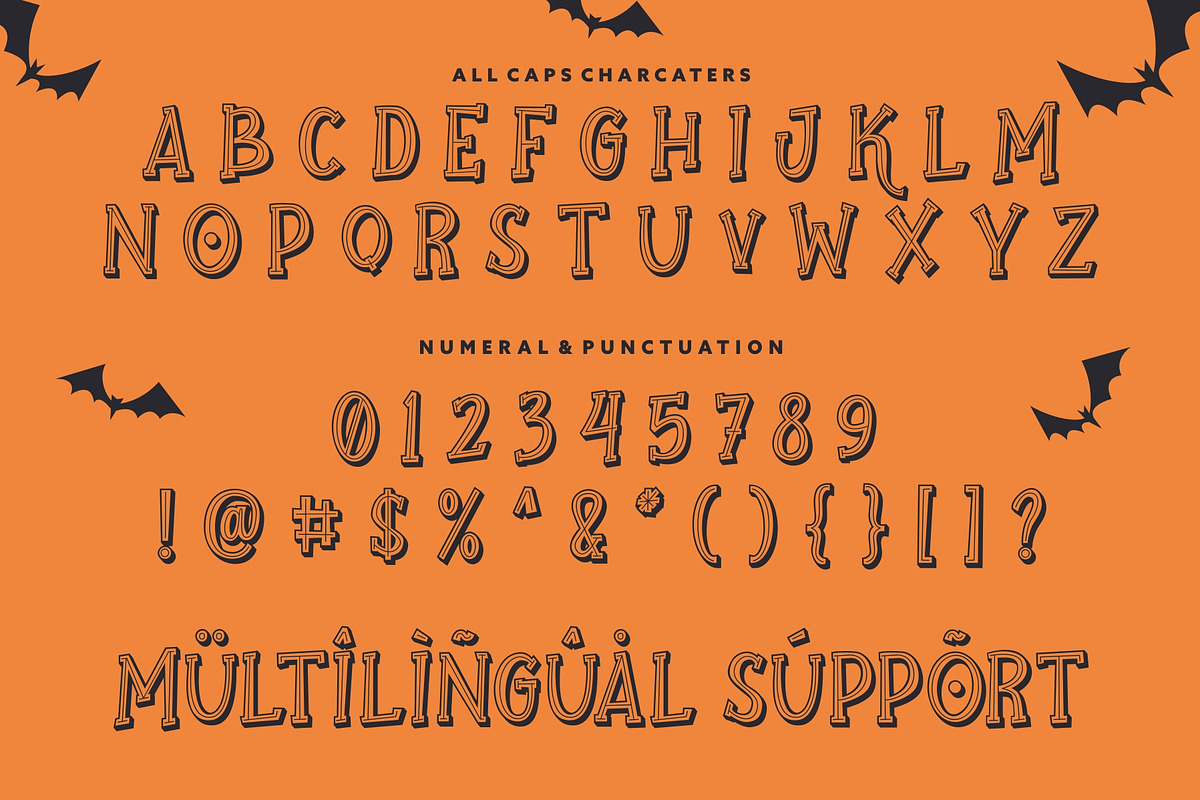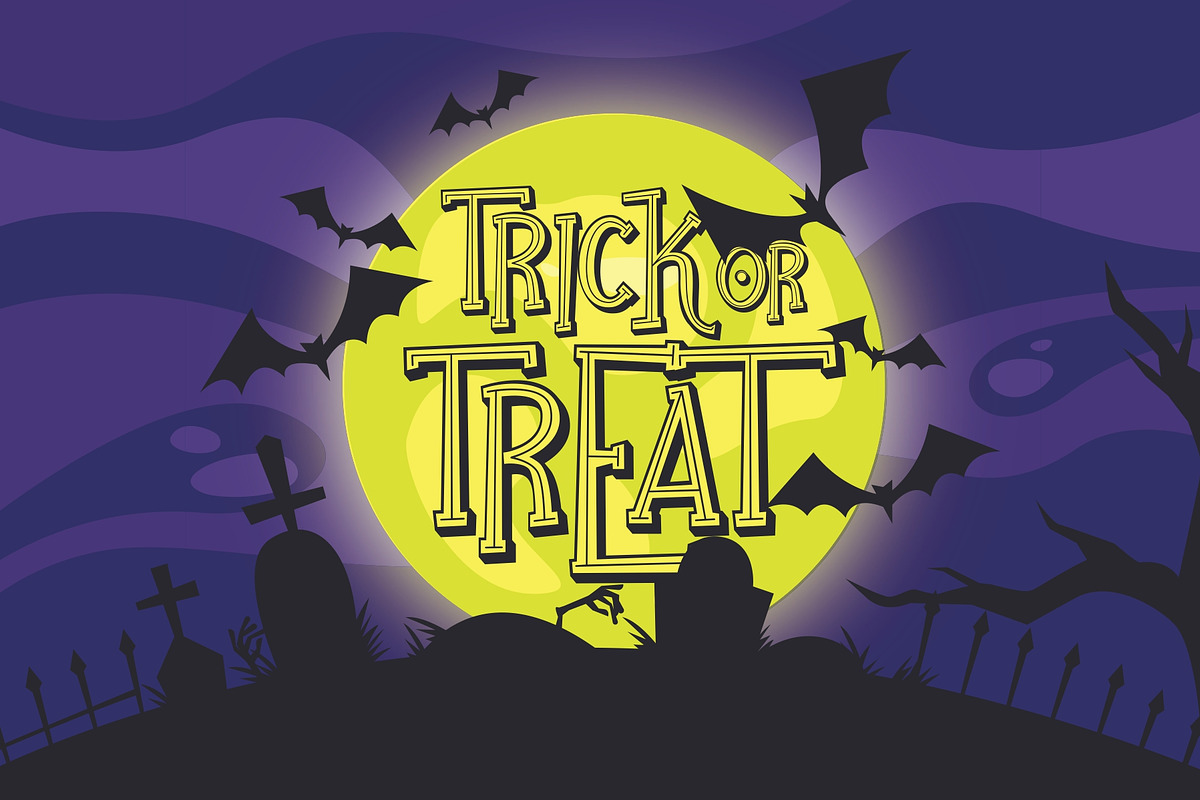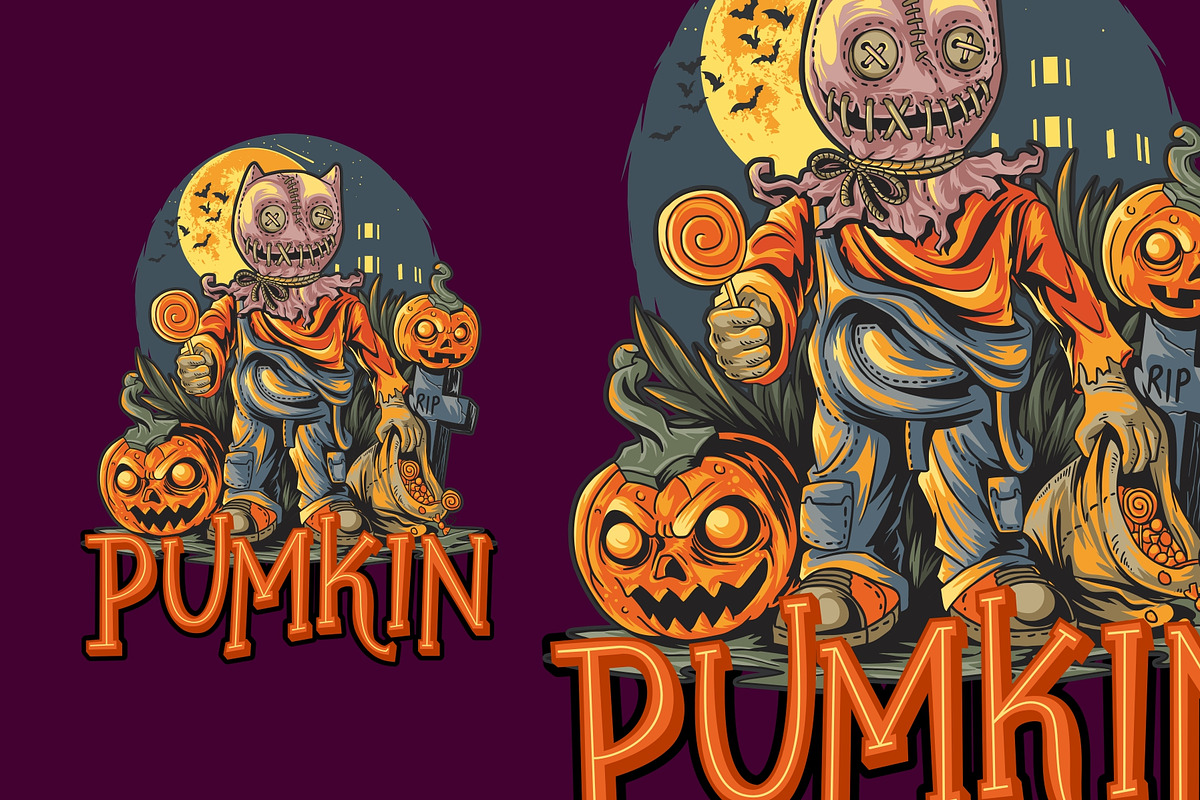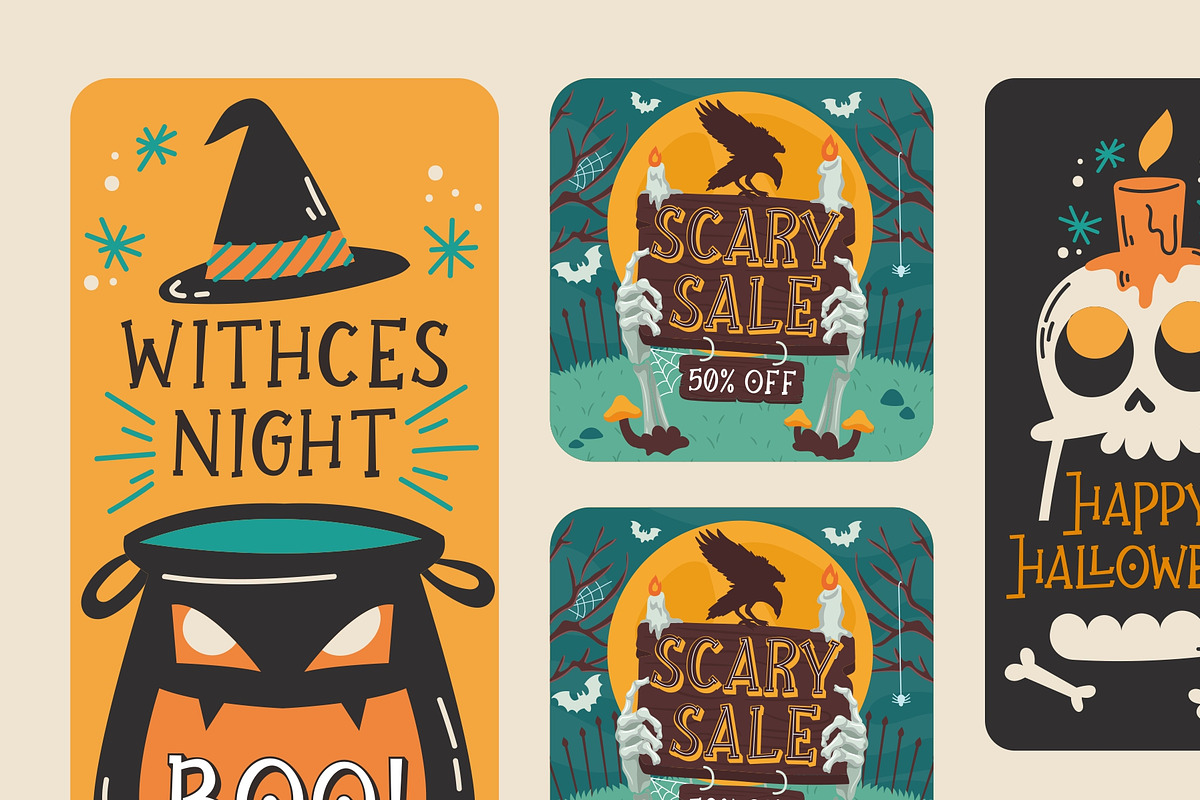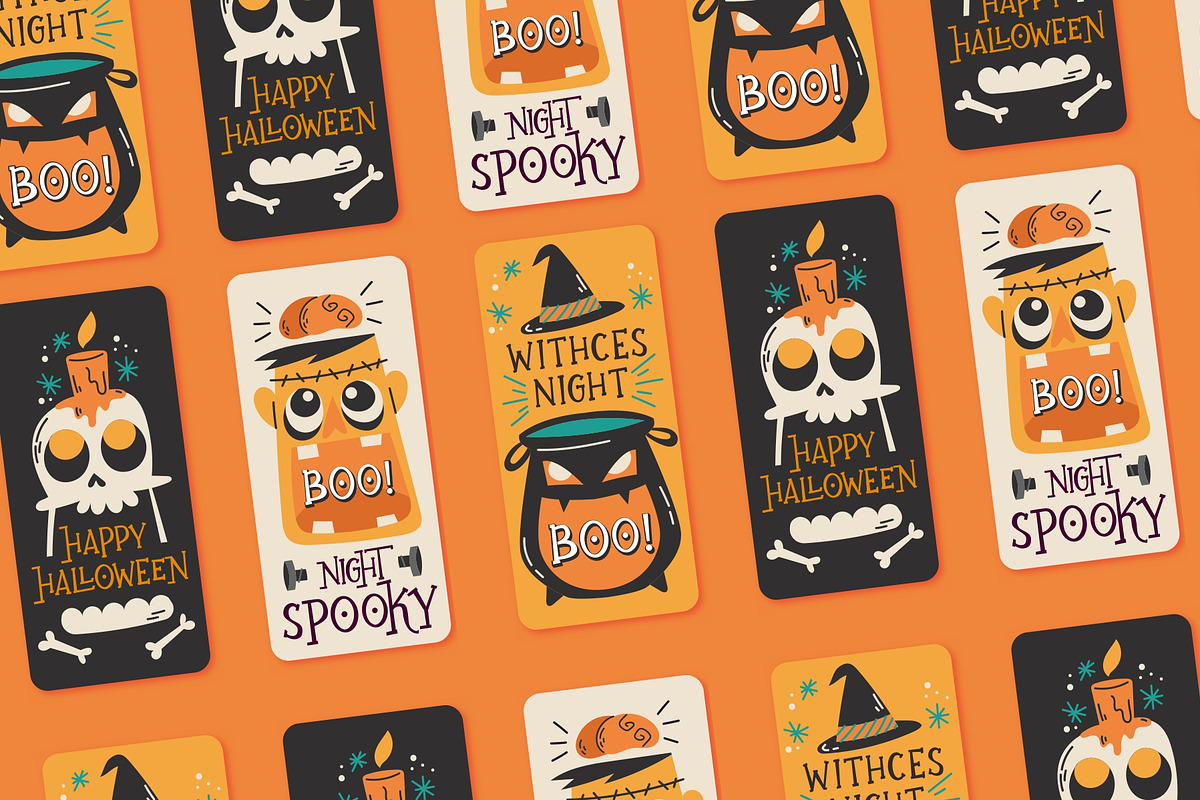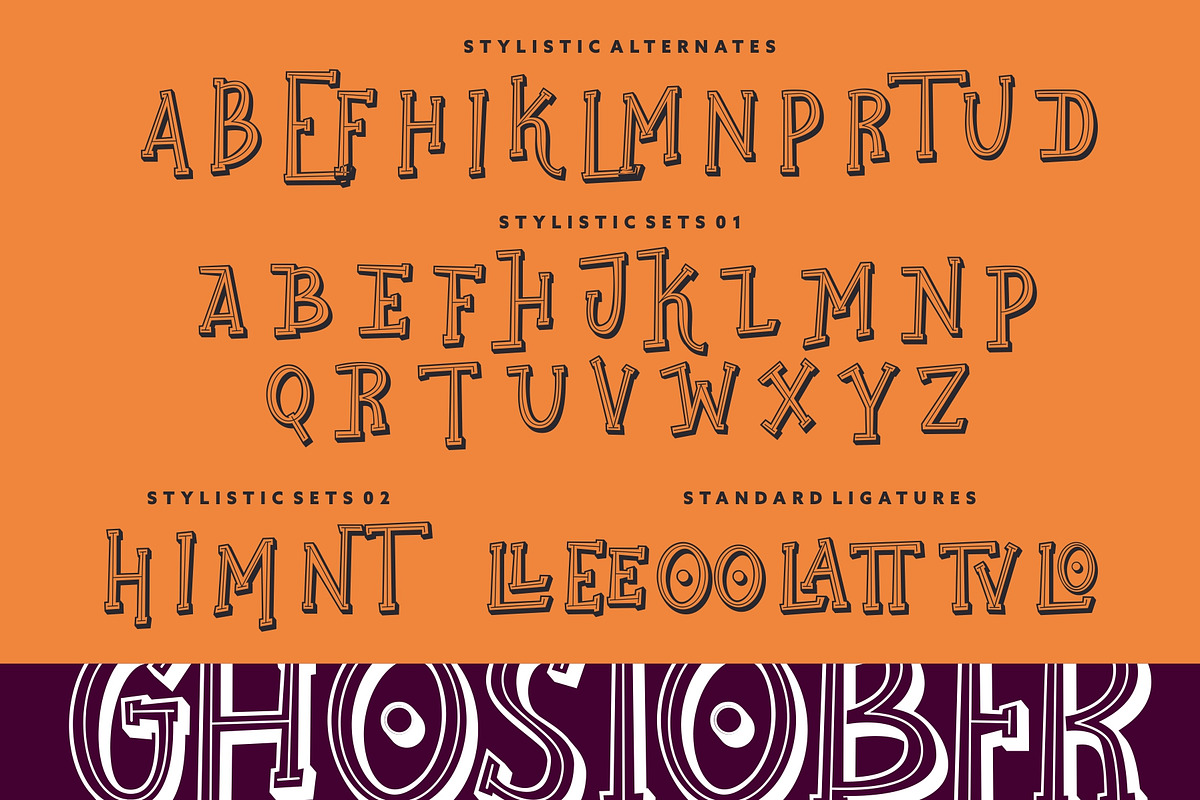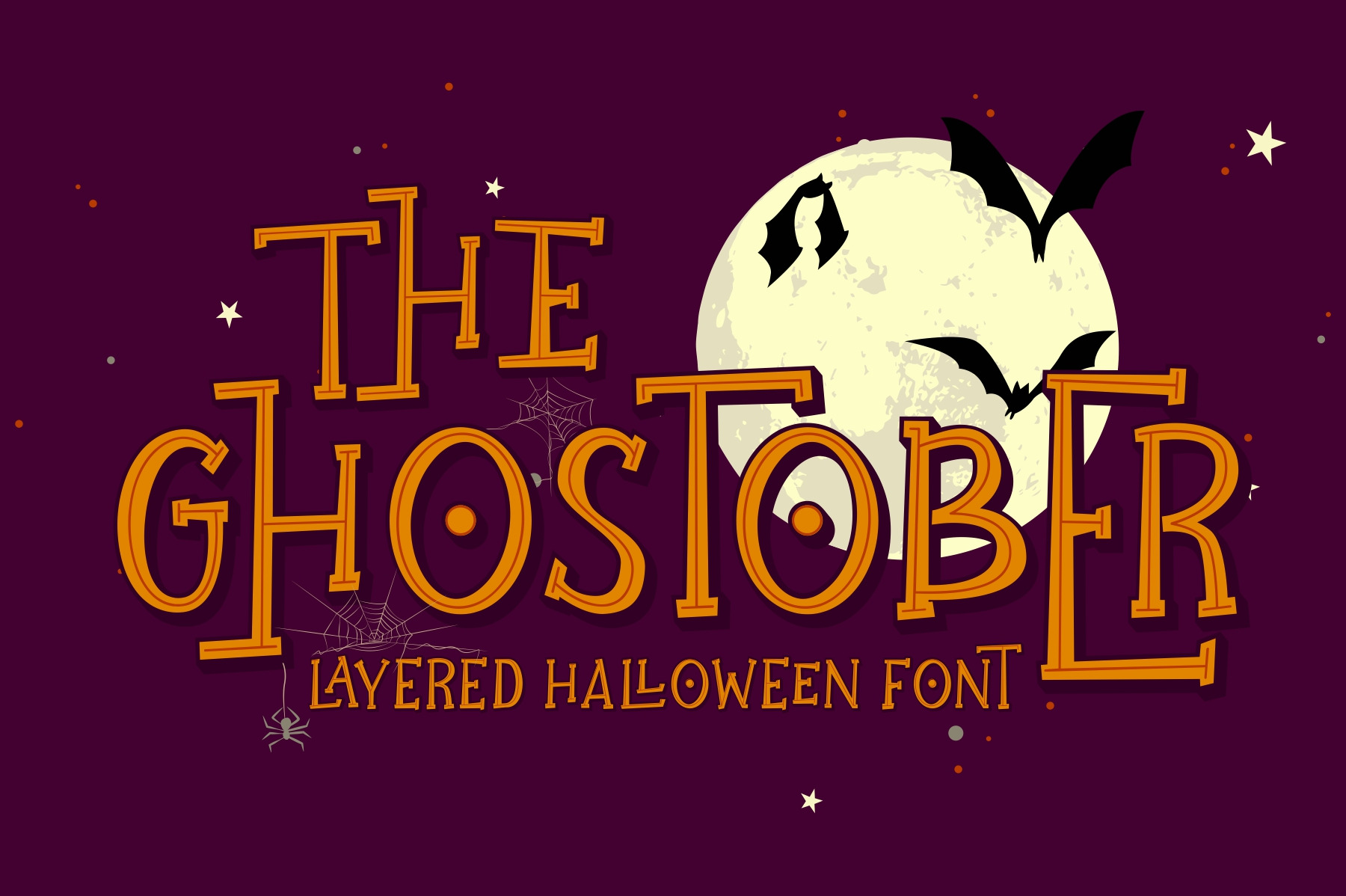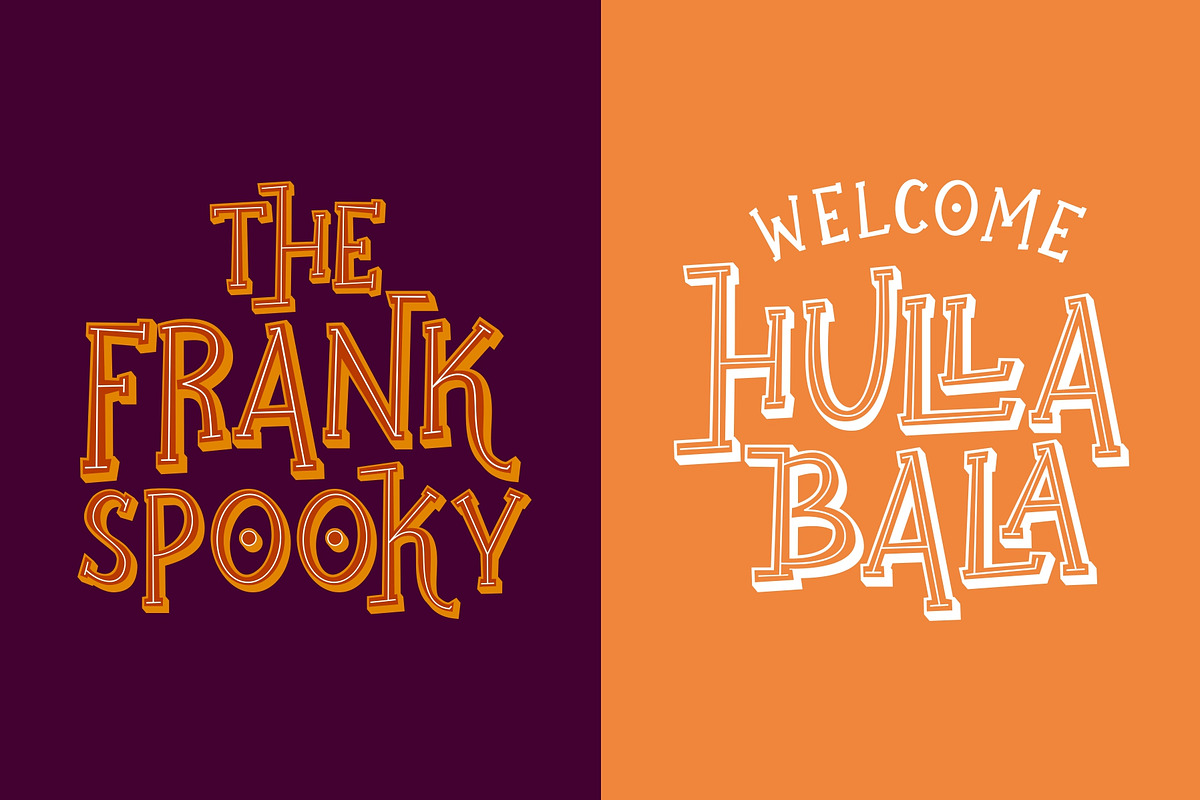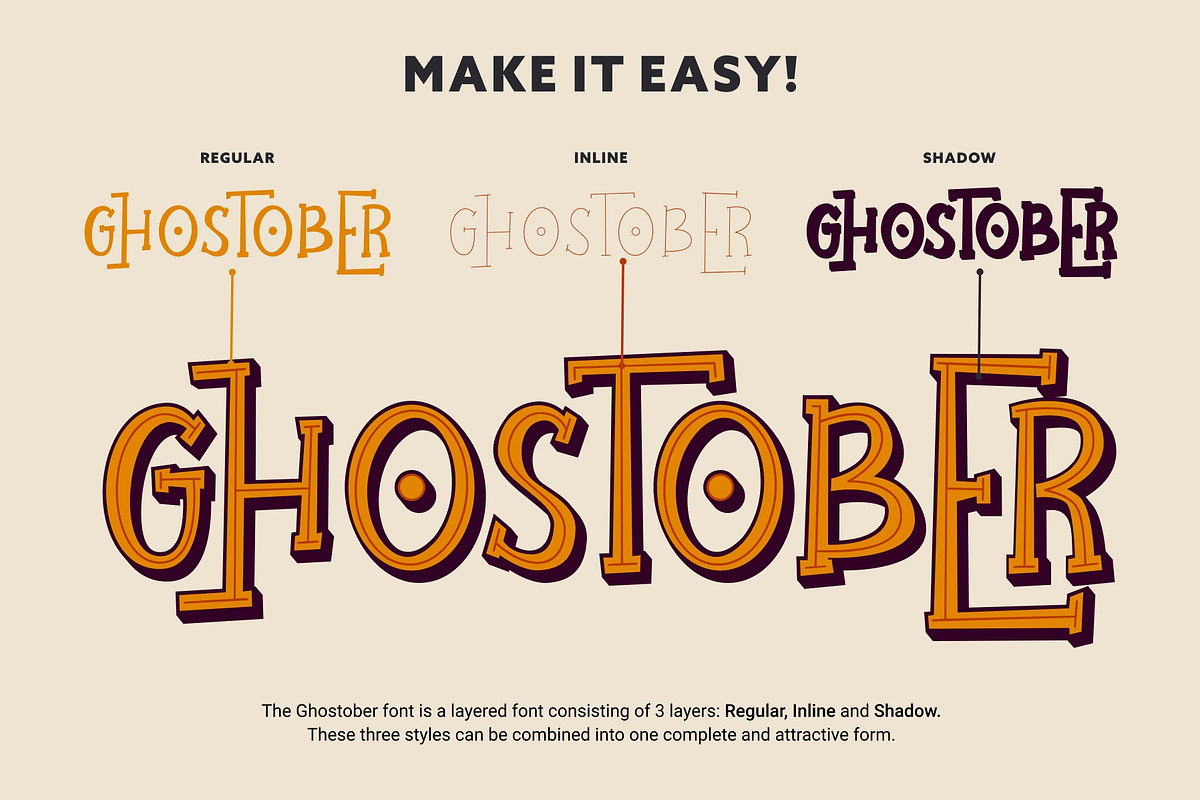
Ghostober | Layered Typeface
Introducing: Ghostober | Layered Typeface
Ghostober Halloween Layered Typeface is a very interesting font, which has been inspired by Halloween and Spooky art. It is formed from very careful lines with stylistic set and ligature features. Ghostober has 200+ glyphs consisting of three layers: Regular, Inline, and Shadow.
Ghostober Features :
- Stylistic Set & Ligatures
- 200+ Characters
- Unique Ligatures
- Multi-Language Support with accent
- Numeral and Punctuations